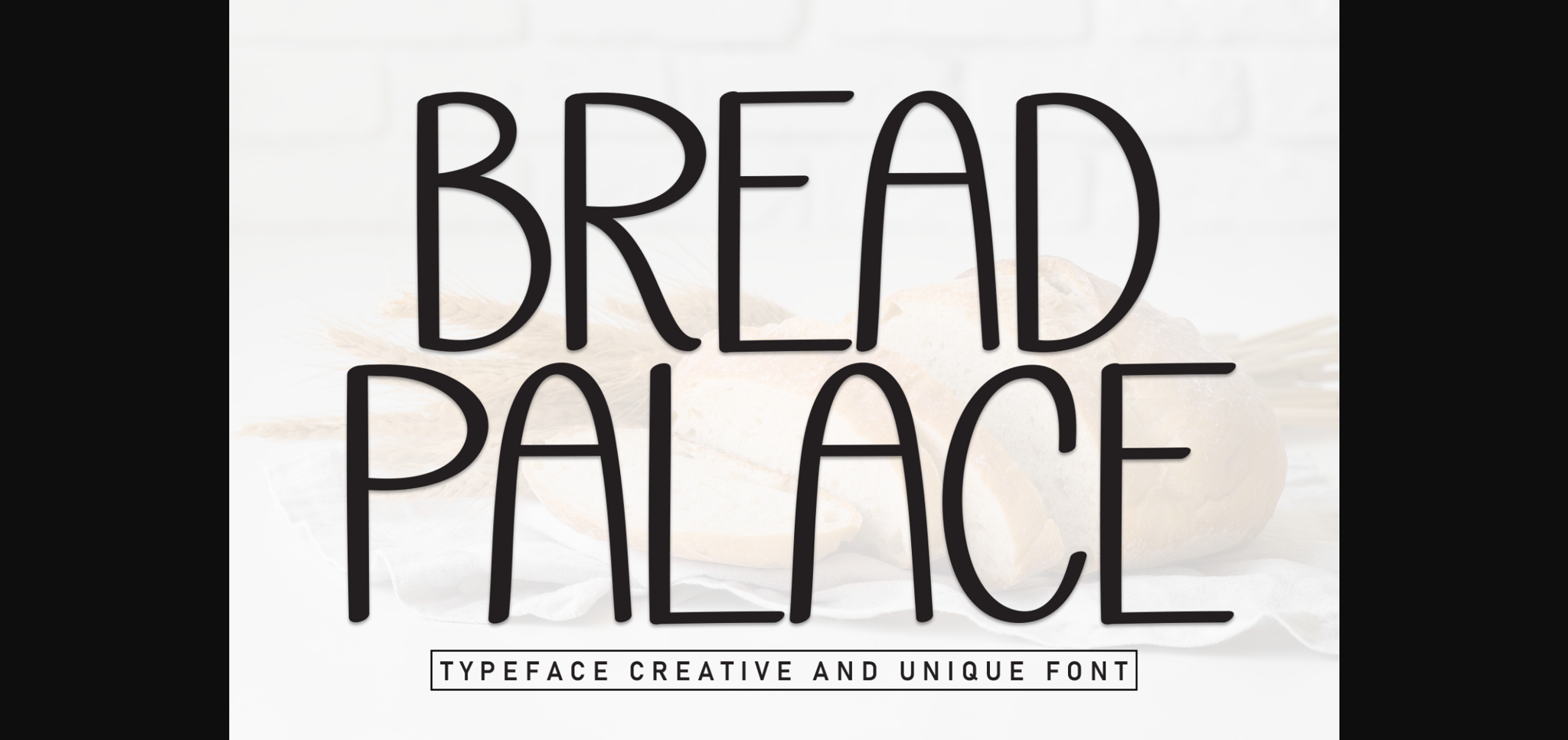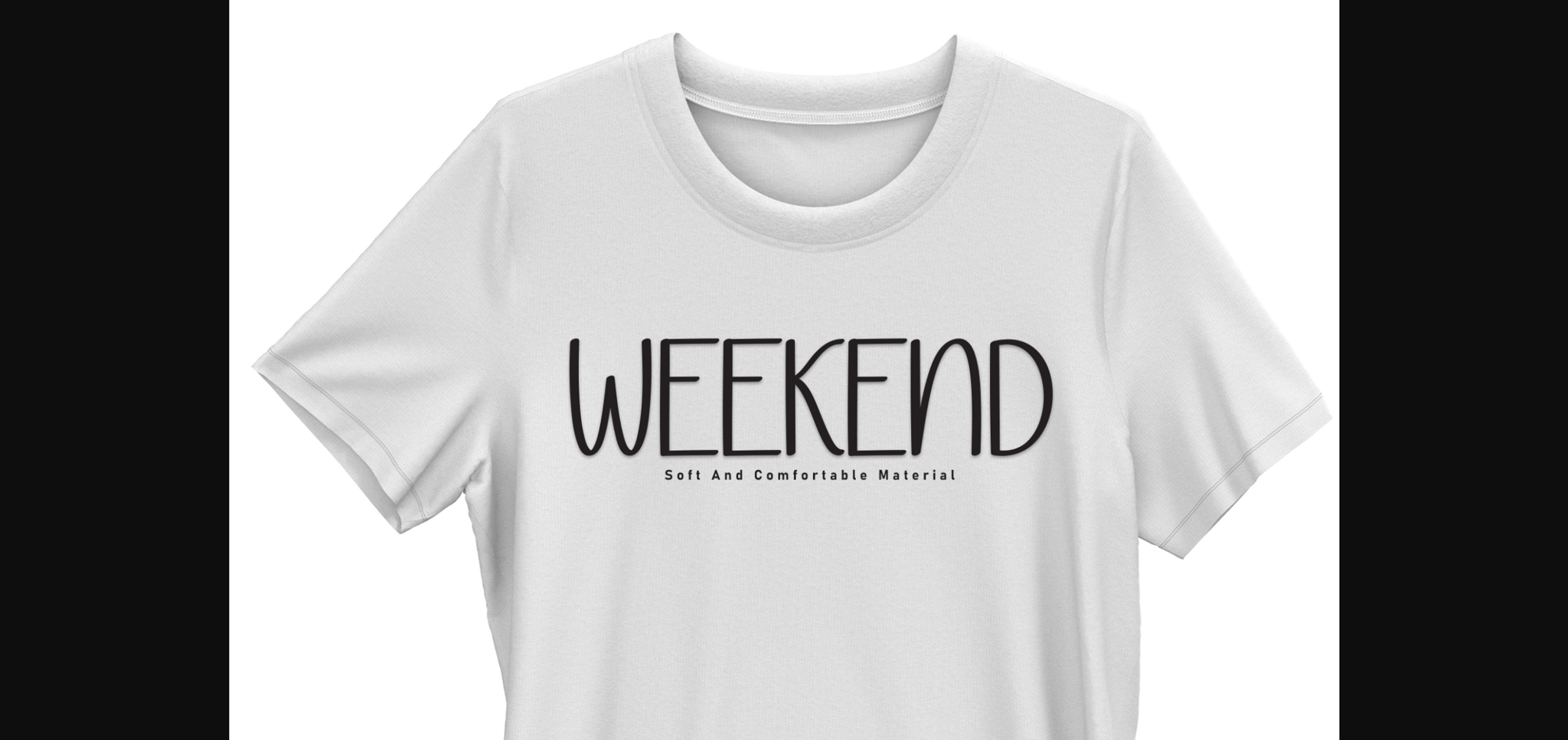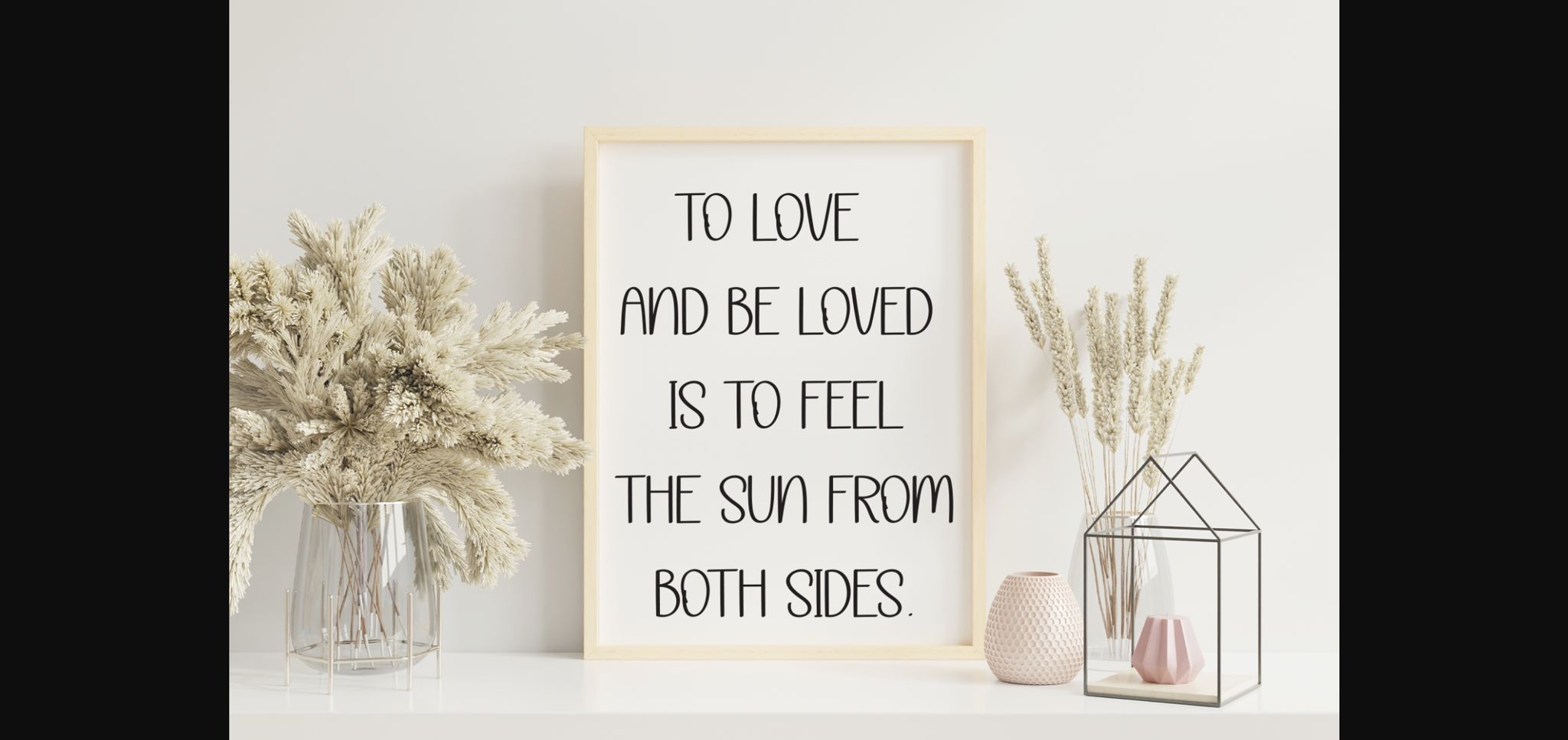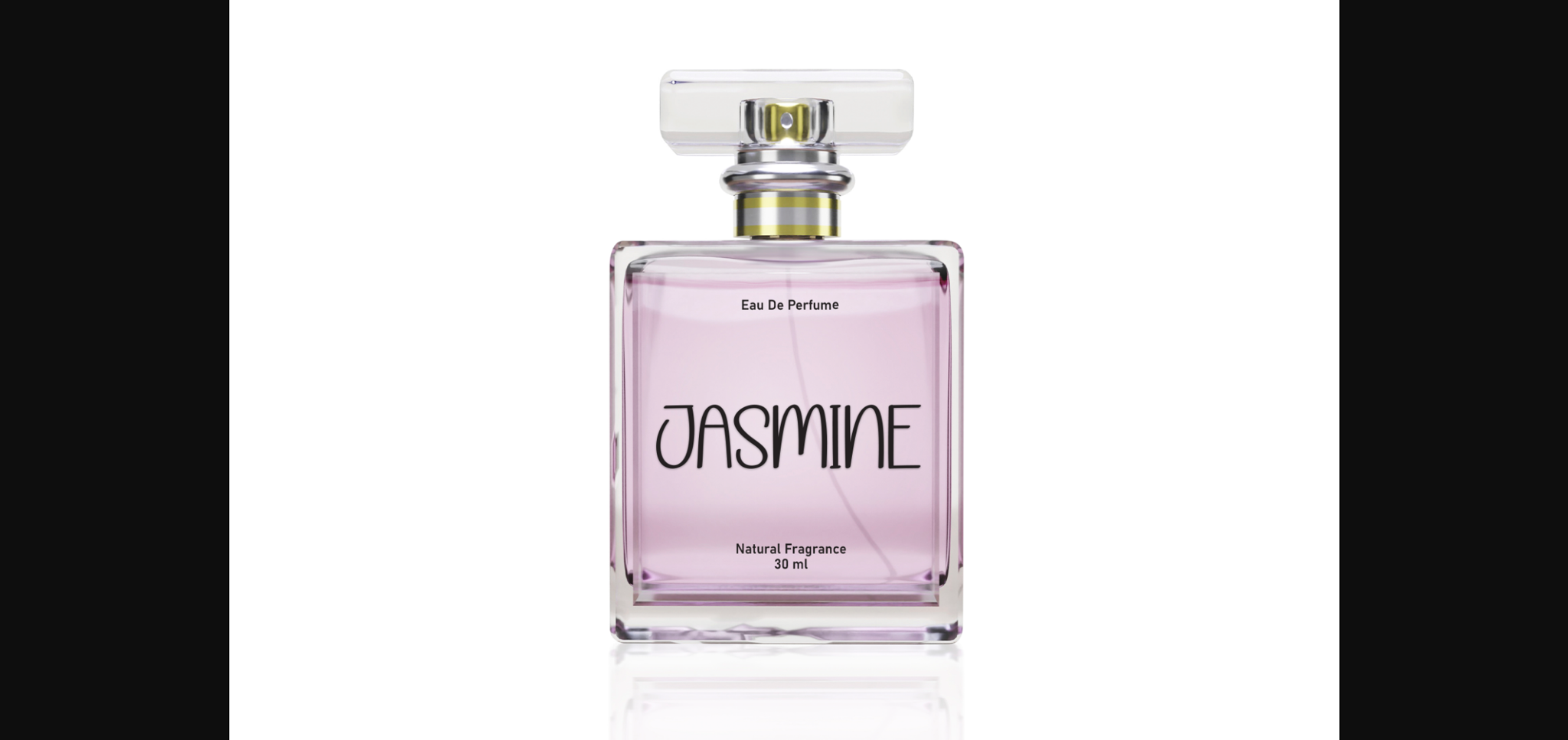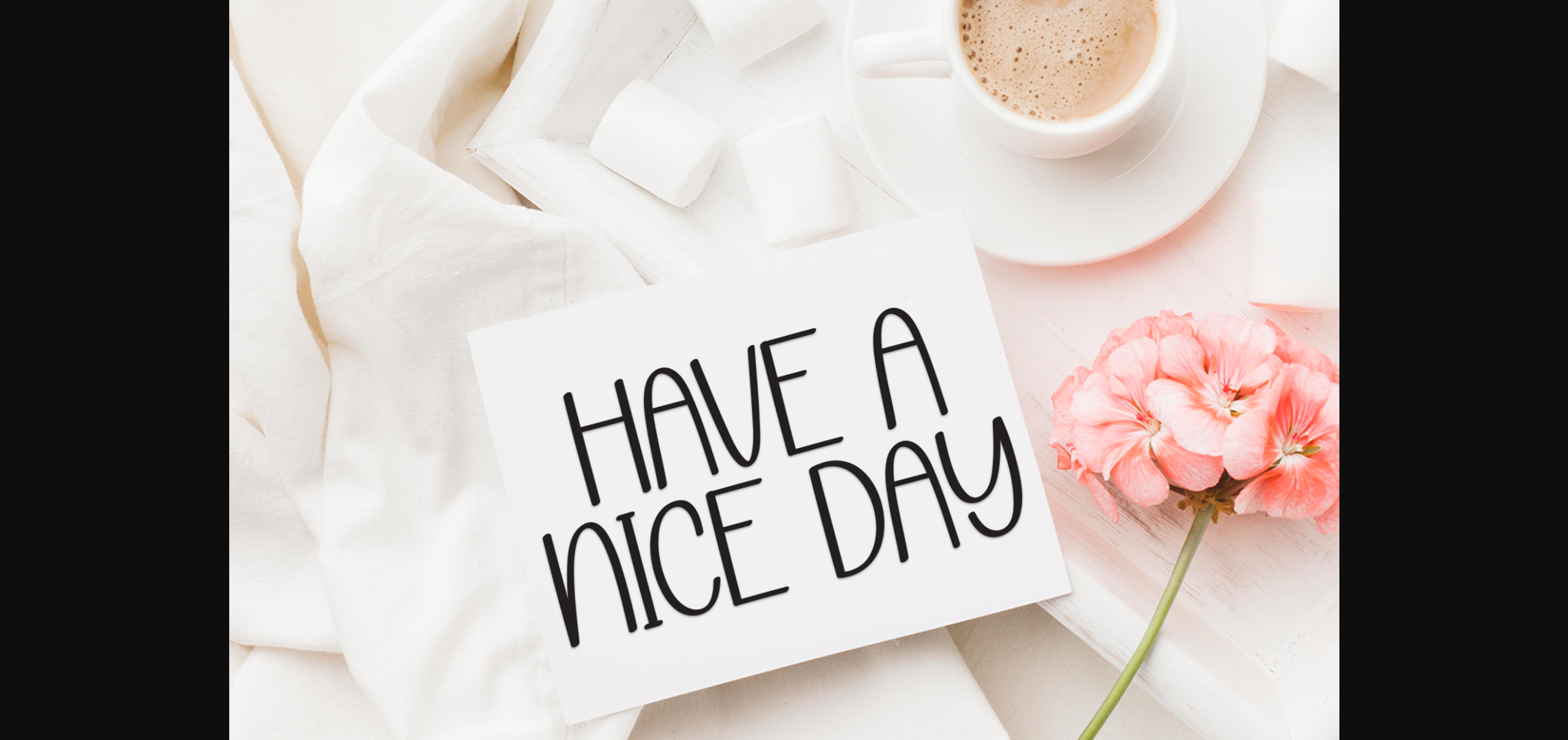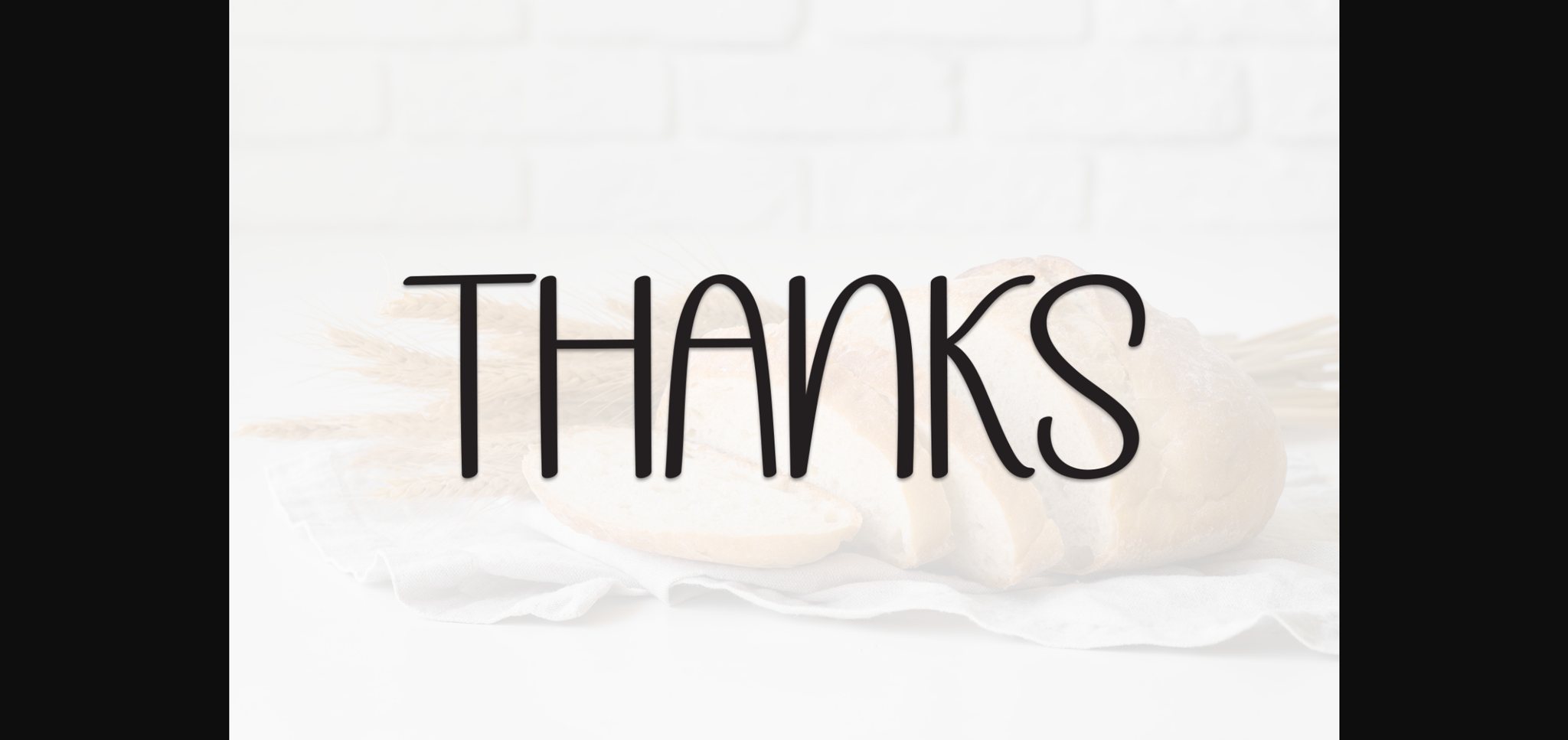
HomeSans Serif FontsBread Palace Font Sans Serif Fonts Bread Palace Font FacebookXPinterestWhatsApp 1 of 9 ... Bread Palace Font Poster 2... Bread Palace Font Poster 3... Bread Palace Font Poster 4... Bread Palace Font Poster 5... Bread Palace Font Poster 6... Bread Palace Font Poster 7... Bread Palace Font Poster 8... Bread Palace Font Poster 9... About Bread Palace Font Brad Palace is a sweet and friendly sans serif font. Cute and fun, this font is ideal for writing wedding invitations, cards, or any other design that might need a casual touch! DOWNLOAD NOW People also explored Riogrande Font Kids Love Font Gelogi Vintage Monograms F Font Handlove Font Amynda Ramond Font Cendranis Font Jellita Gorinchem Font 368 0 TagsBread Palace Font Previous articleDecholmen FontNext articleKhem Lf Font LEAVE A REPLY Cancel reply Comment: Please enter your comment! Name:* Please enter your name here Email:* You have entered an incorrect email address! Please enter your email address here Website: Save my name, email, and website in this browser for the next time I comment. Personal Use Free True Love Personal Use Free Read more about this font Alnair Star Personal Use Free Read more about this font Rare Knuckle Personal Use Free Read more about this font Hanifah Personal Use Free Read more about this font BLOG Free vs Paid Fonts: Why Investing in Premium Fonts Is Worth It Free vs Paid Fonts: Why Premium Fonts Are Worth It in 2025 The debate of free vs paid fonts continues in the design world. While... Transform Your Website: Elevate Your Typography with 7 Best Web Font Generators Exploring Font Trends Using Fonts in Digital Marketing: Tips to Strengthen Your Brand Identity